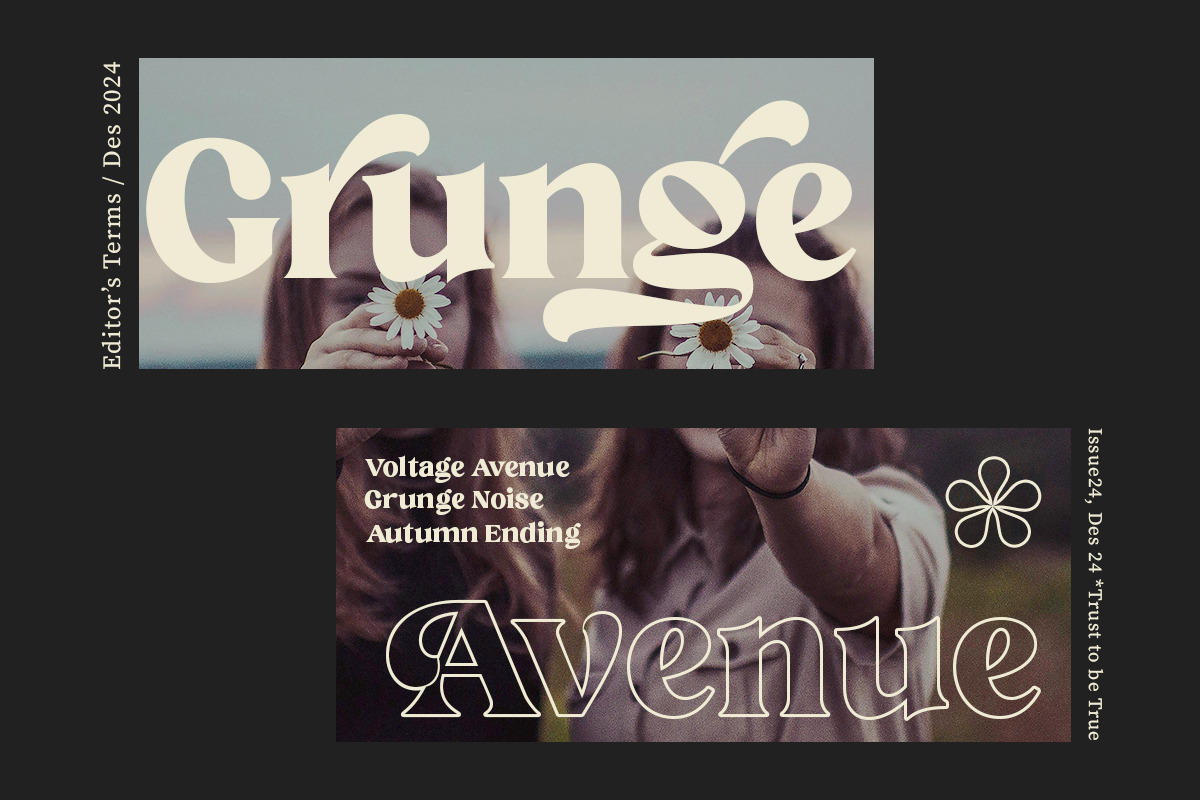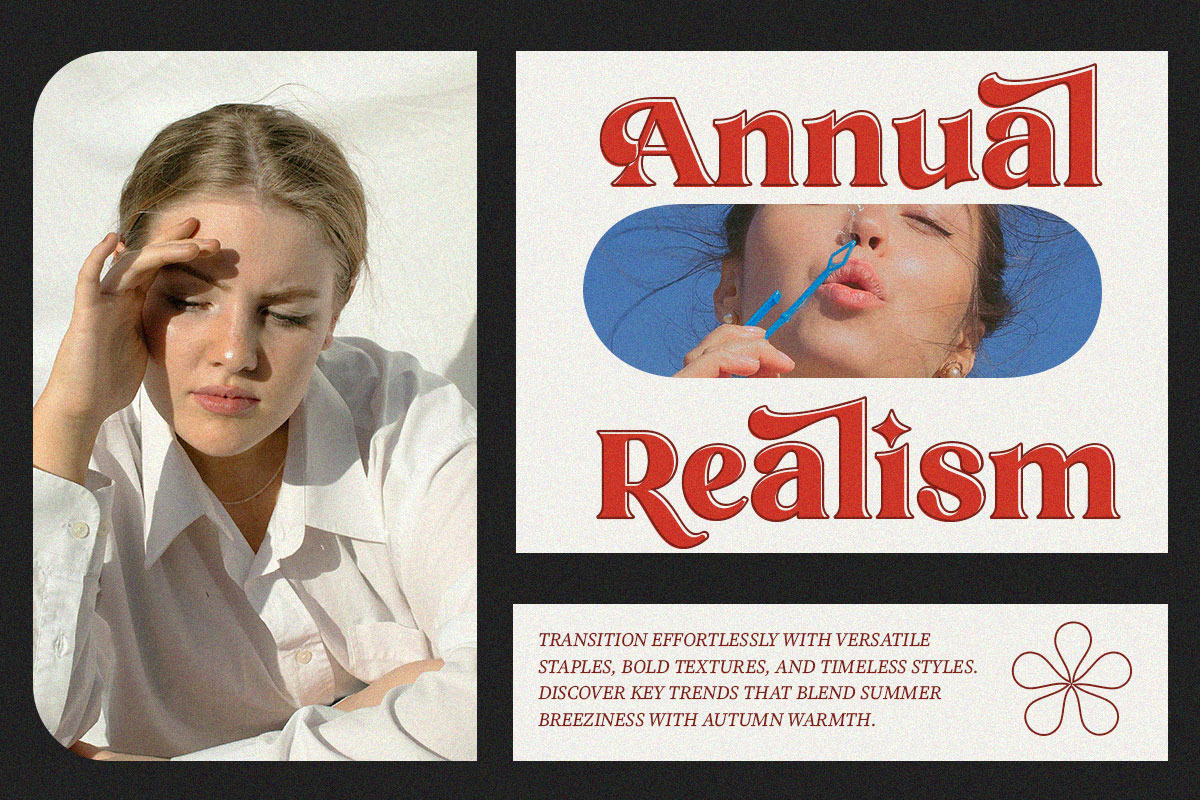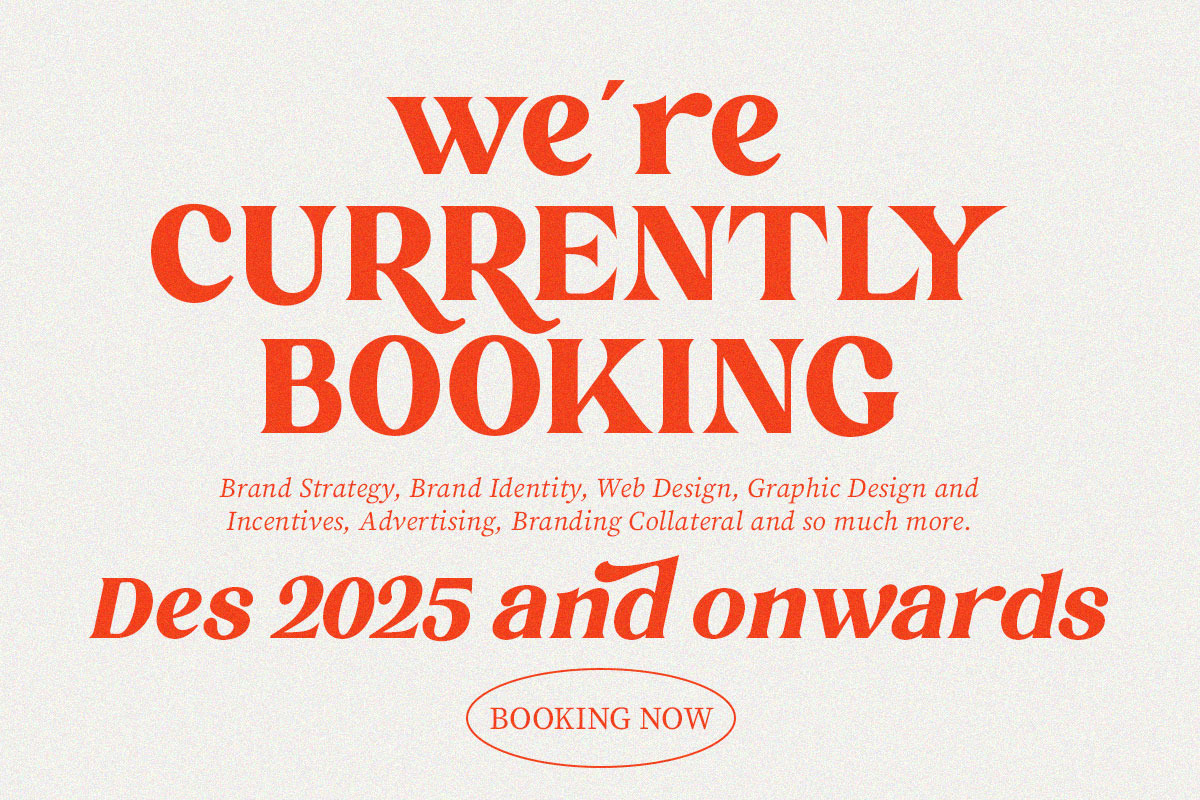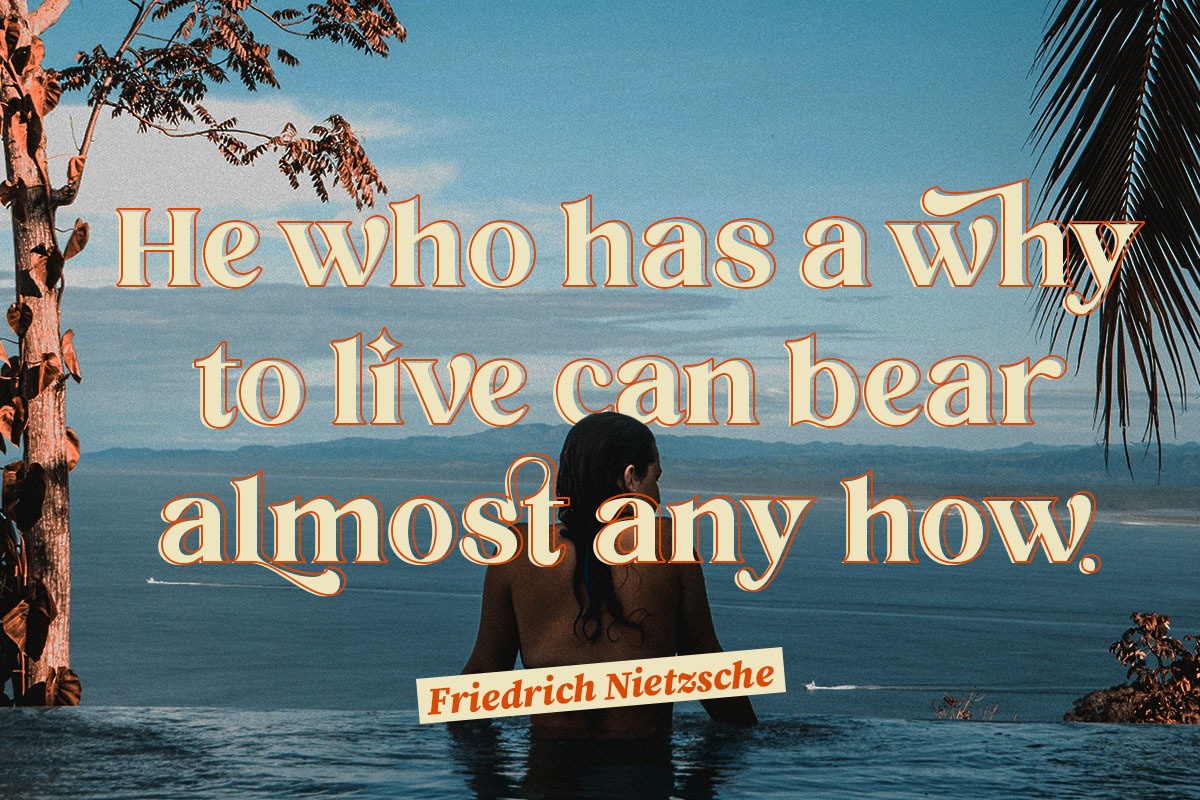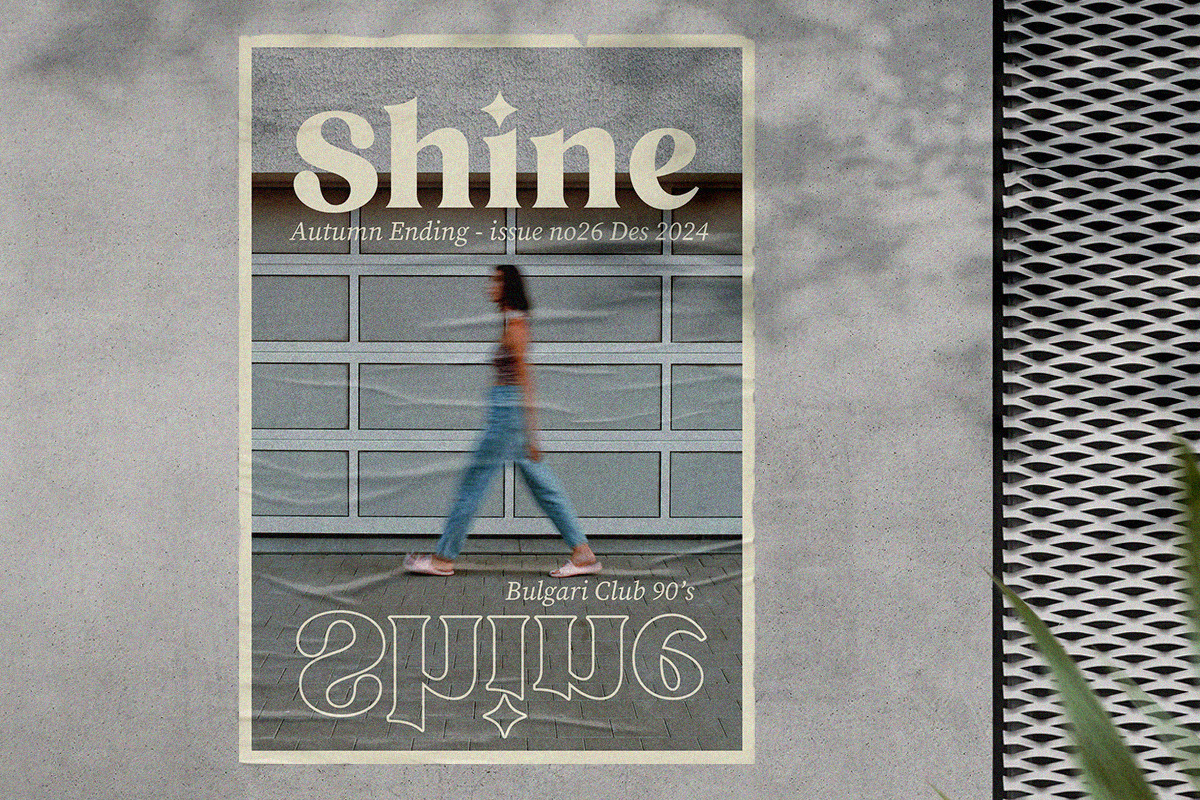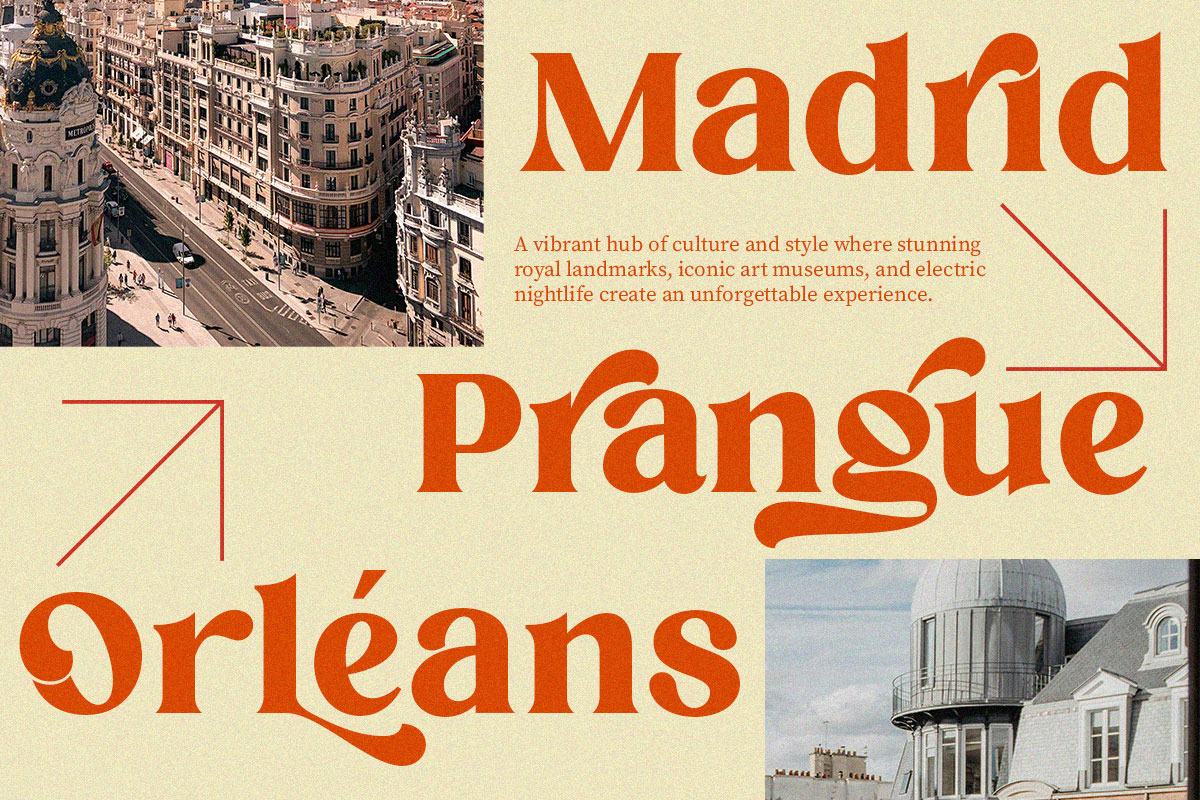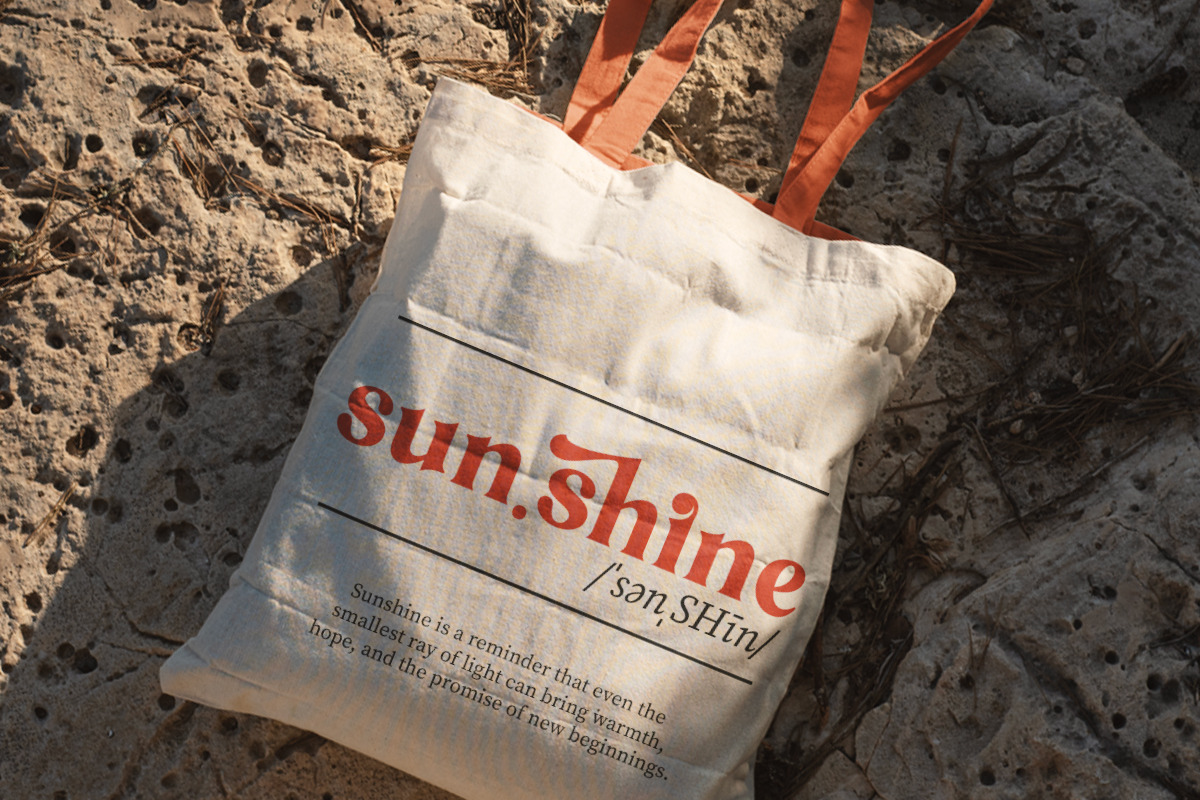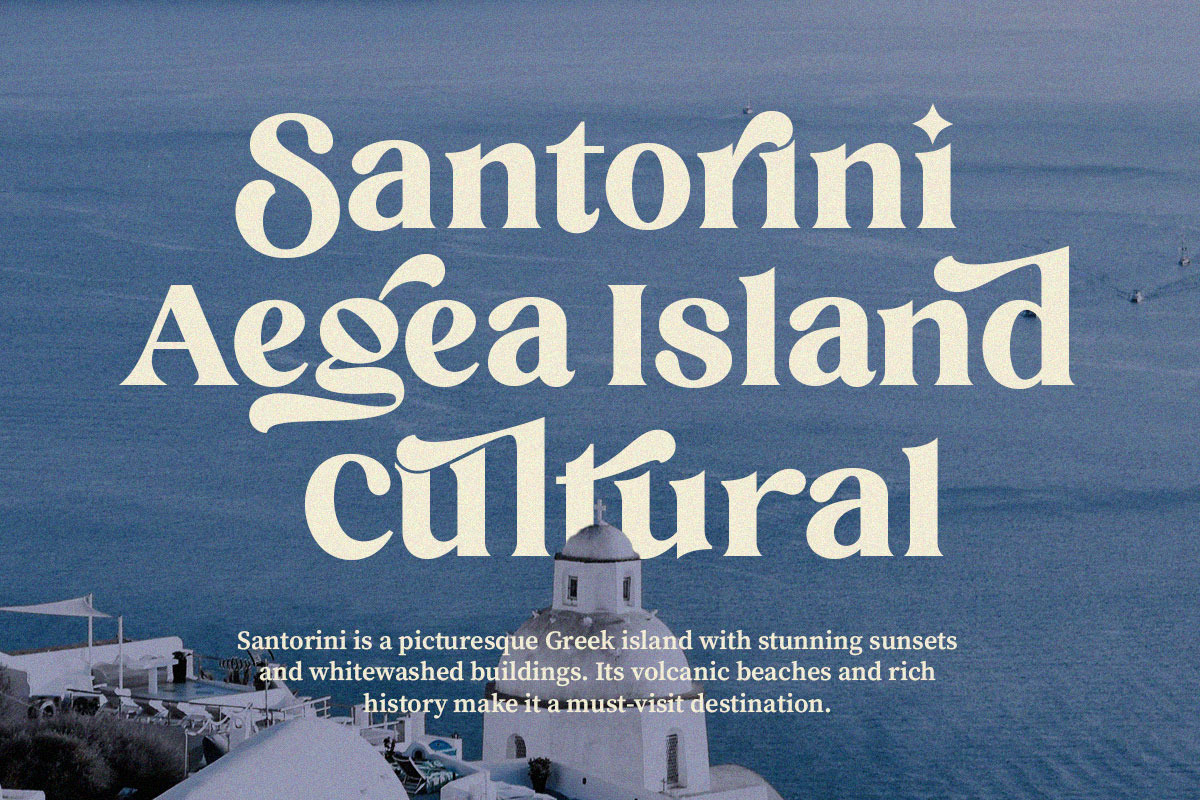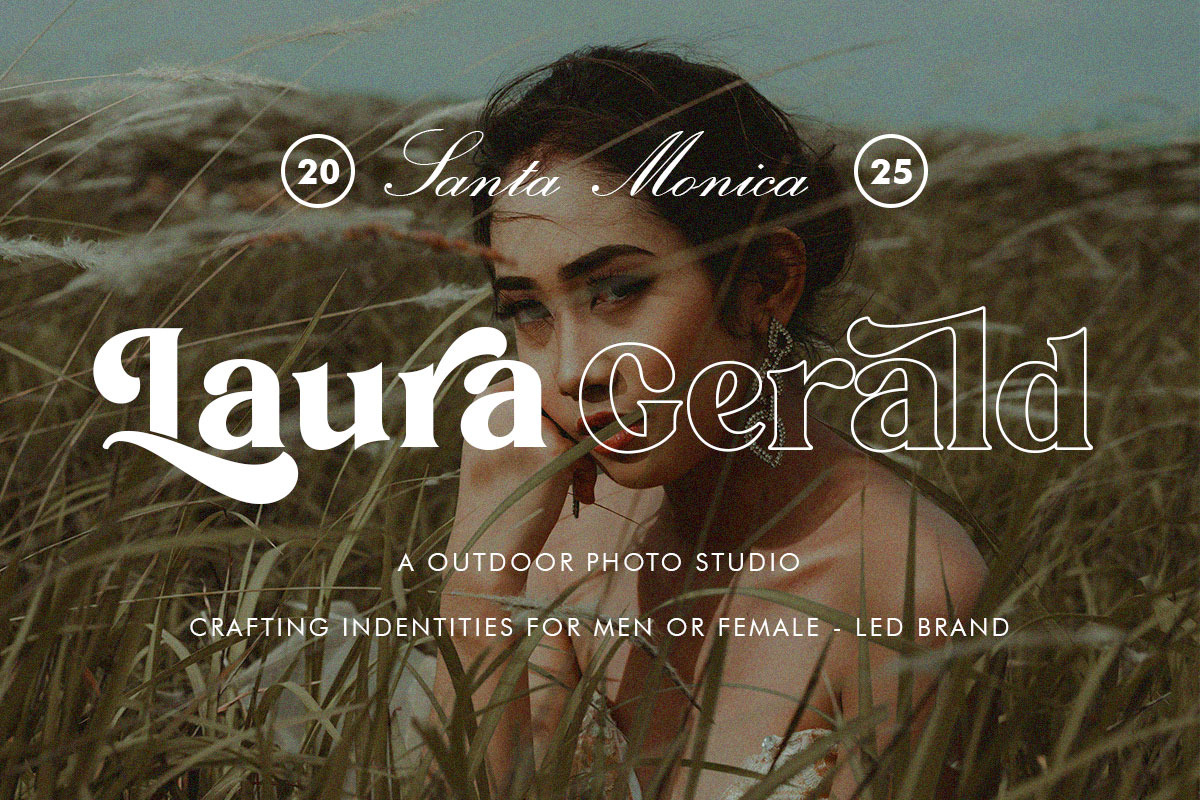
Bulgari Club
Hi, this is my new retro font Bulgari Club!
Bulgari Club is a bold retro font with lots of alternate glyphs. This font is perfect for fun retro and vintage designs. Bulgari Club font can also be used in various works such as logos, covers, posters, quotes, product packaging, merchandise, social media, and more! Use this font and let your creativity vibrate!!